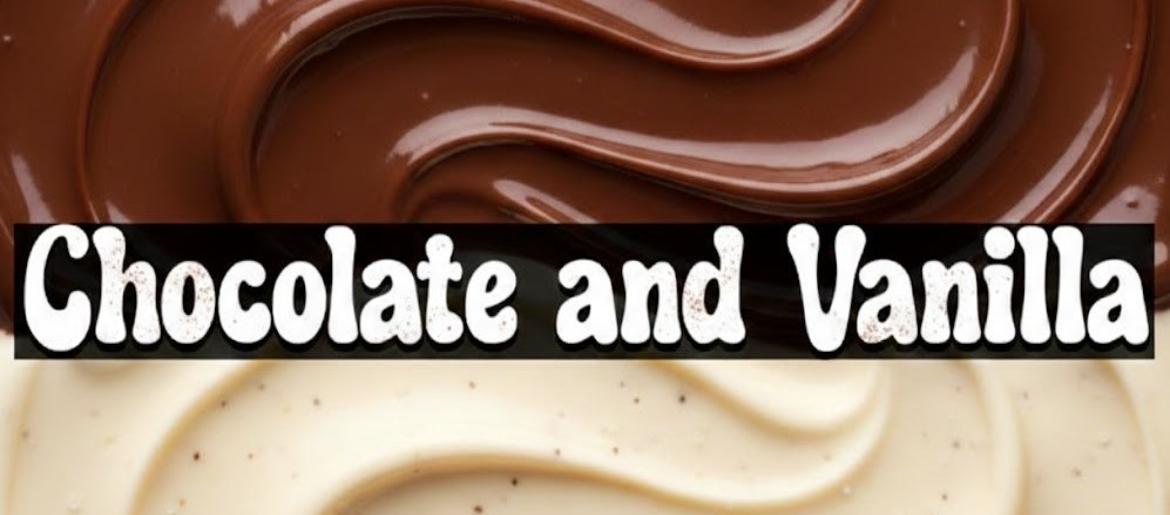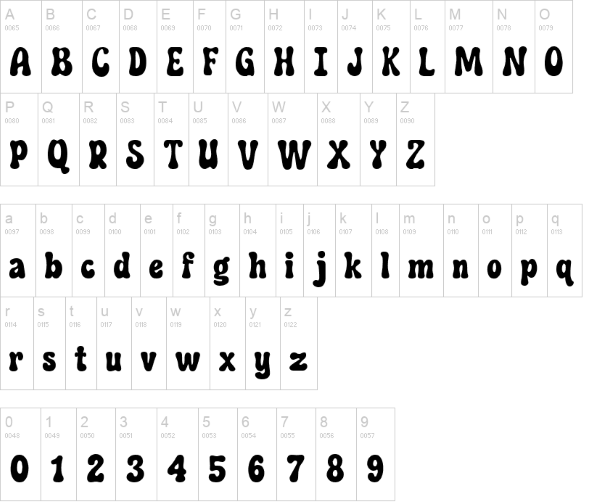
Chocolate and Vanilla Font
Chocolate and Vanilla Font is a groovy display typeface inspired by retro design and playful rhythm. Its curvy, flowing letterforms create a fun vintage vibe, making it perfect for posters, packaging, logos, apparel, and branding that aim to capture a cheerful, nostalgic, and eye-catching 70s-style aesthetic.
➤ Font Name: Chocolate and Vanilla
➤ Style: Groovy
Chocolate and Vanilla font